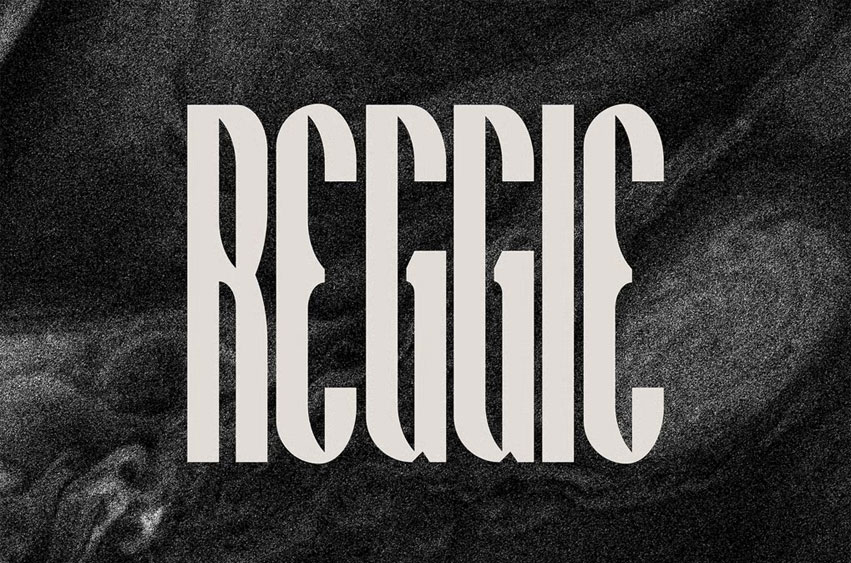
Reggie Font
Reggie Font is a condensed, elongated, and geometric display style with strong vertical emphasis. Its tall proportions and narrow spacing create a sense of elegance, boldness, and modern sophistication. The sharp contrasts between the thick stems and the curved, open counters give it a futuristic yet Art Deco-inspired aesthetic.
Scientifically speaking, this font falls into the category of display typefaces, optimized for impactful headlines rather than body text. Its condensed width allows more characters to fit in a line, while its high contrast and sharp terminals generate a strong visual rhythm that captures attention.